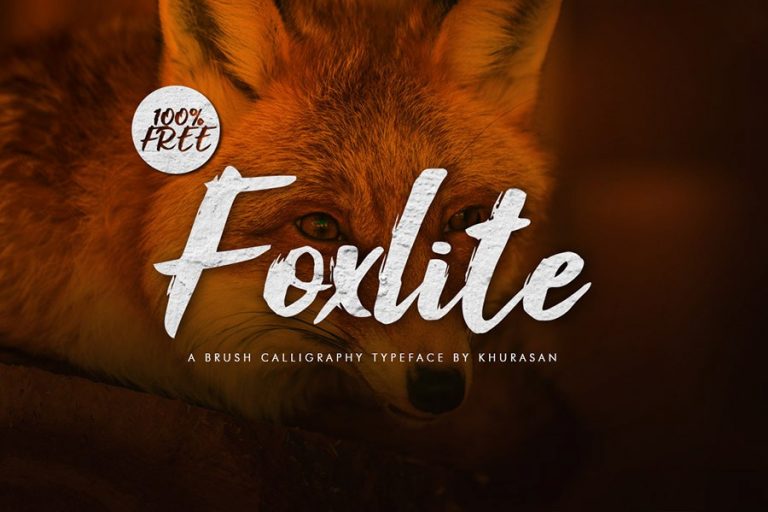
Foxlite Brush Font
Foxlite – is an brush script font created by khurasan. Foxlite Brush is a fun market pen font with a quirky style and feel to it! Foxlite suitable for logo, branding, greeting card, poster and any design that you create.